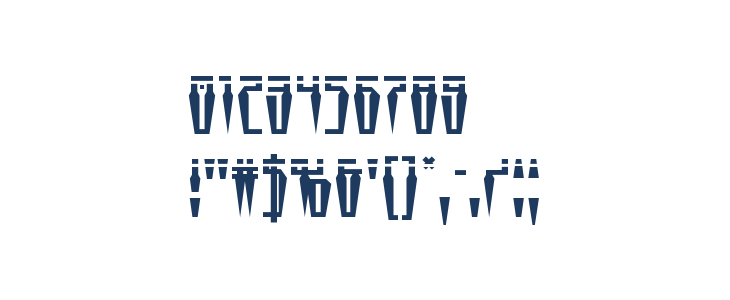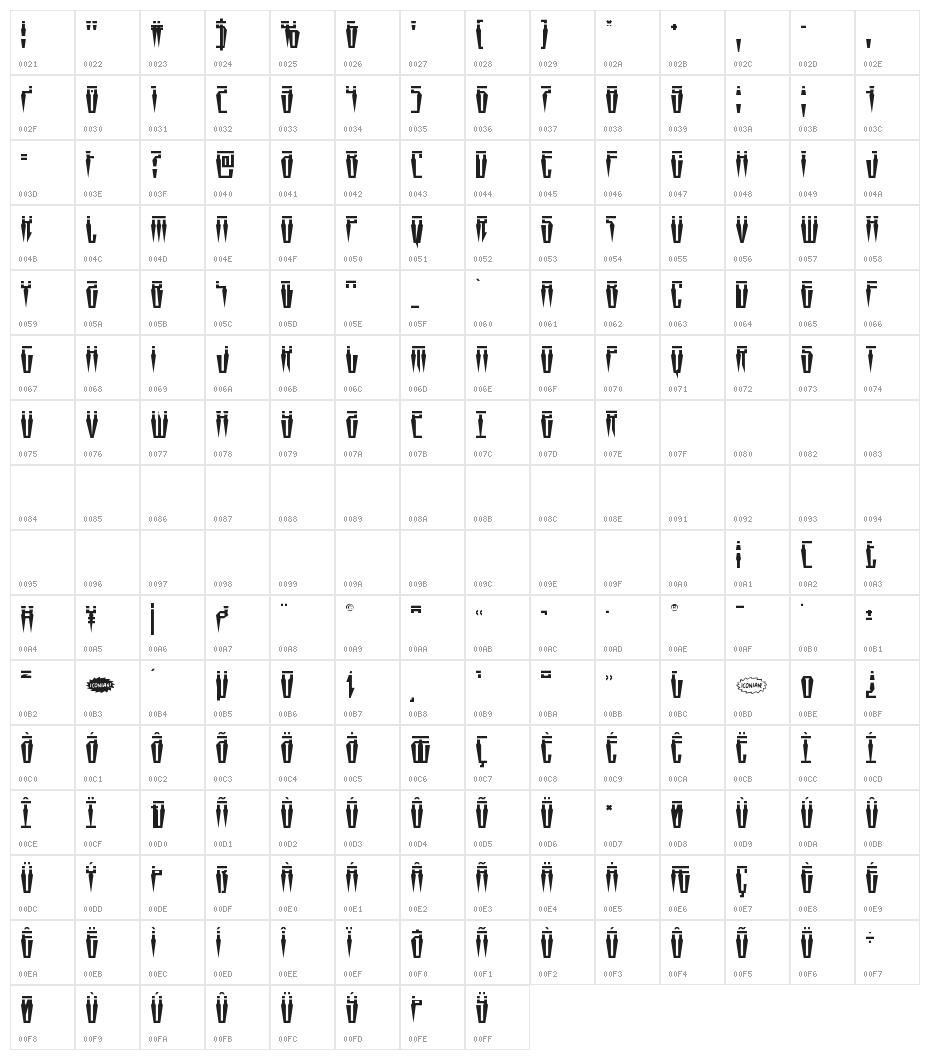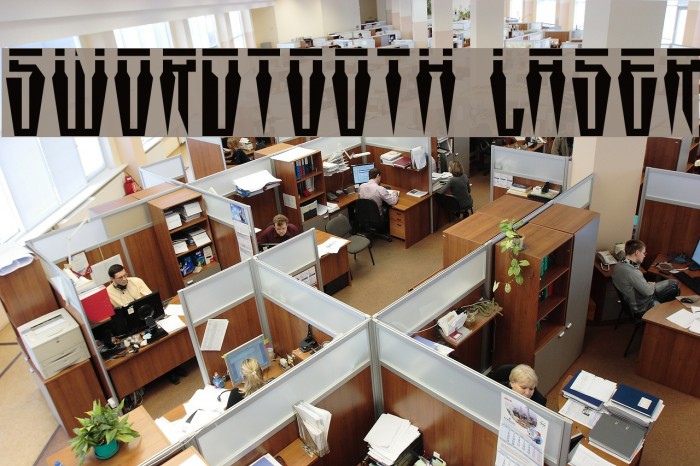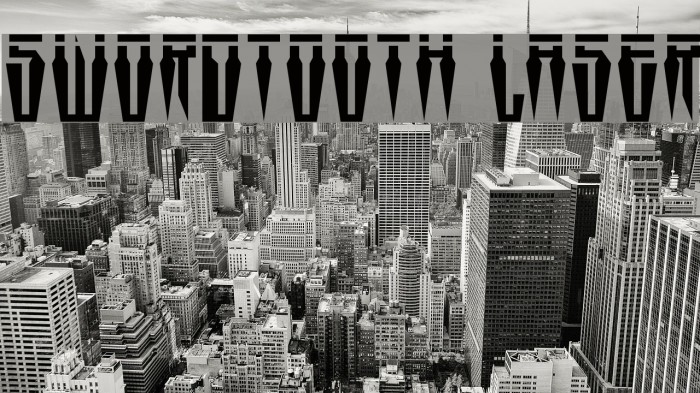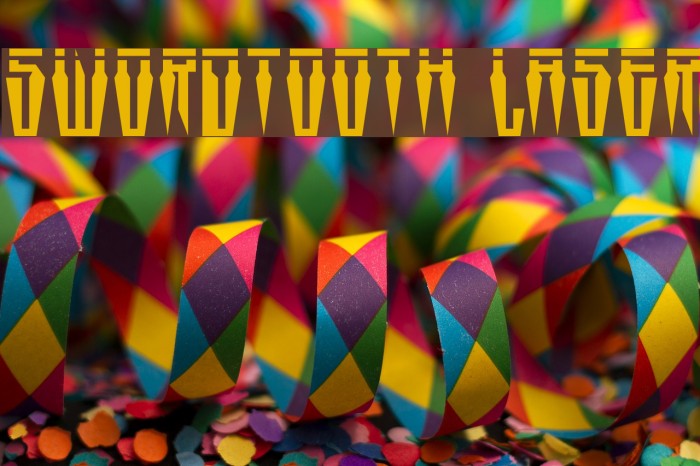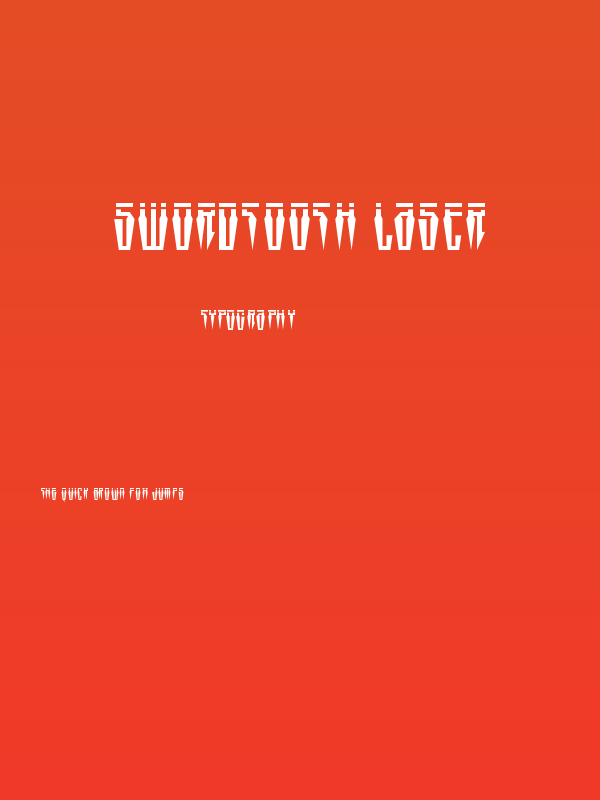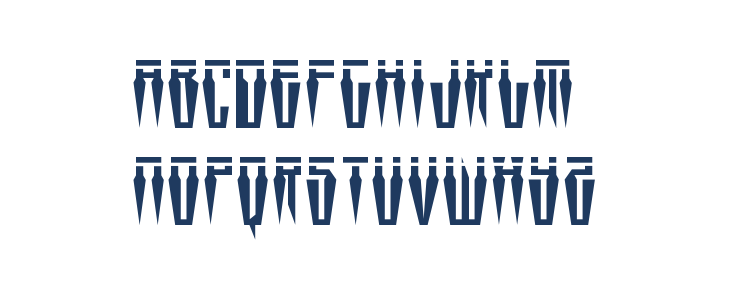
Swordtooth Laser Font
Swordtooth Laser Description
This font features a bold and striking design with sharp, angular edges that resemble the teeth of a saw or a laser-cut pattern. The uppercase and lowercase letters maintain a consistent geometric style, characterized by pointed ends and a futuristic appearance. The numerals and special characters follow the same aesthetic, ensuring a cohesive look across all glyphs. The font's unique style makes it ideal for attention-grabbing designs, offering a modern and edgy vibe that stands out.
| Overall Style | Futuristic, Edgy |
| Proposed Projects | Perfect for sci-fi themed posters, video game titles, futuristic branding, and edgy graphic designs. |